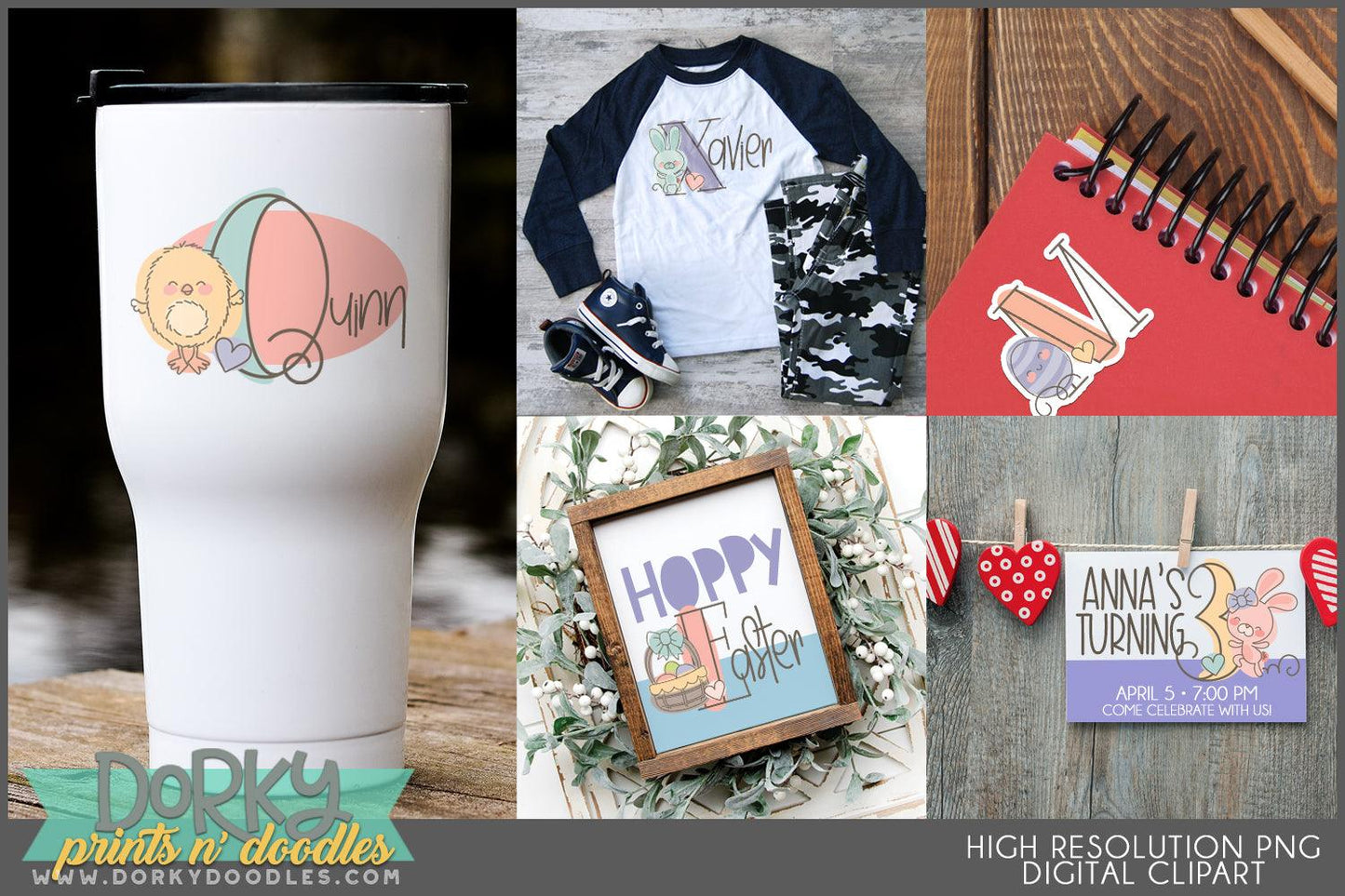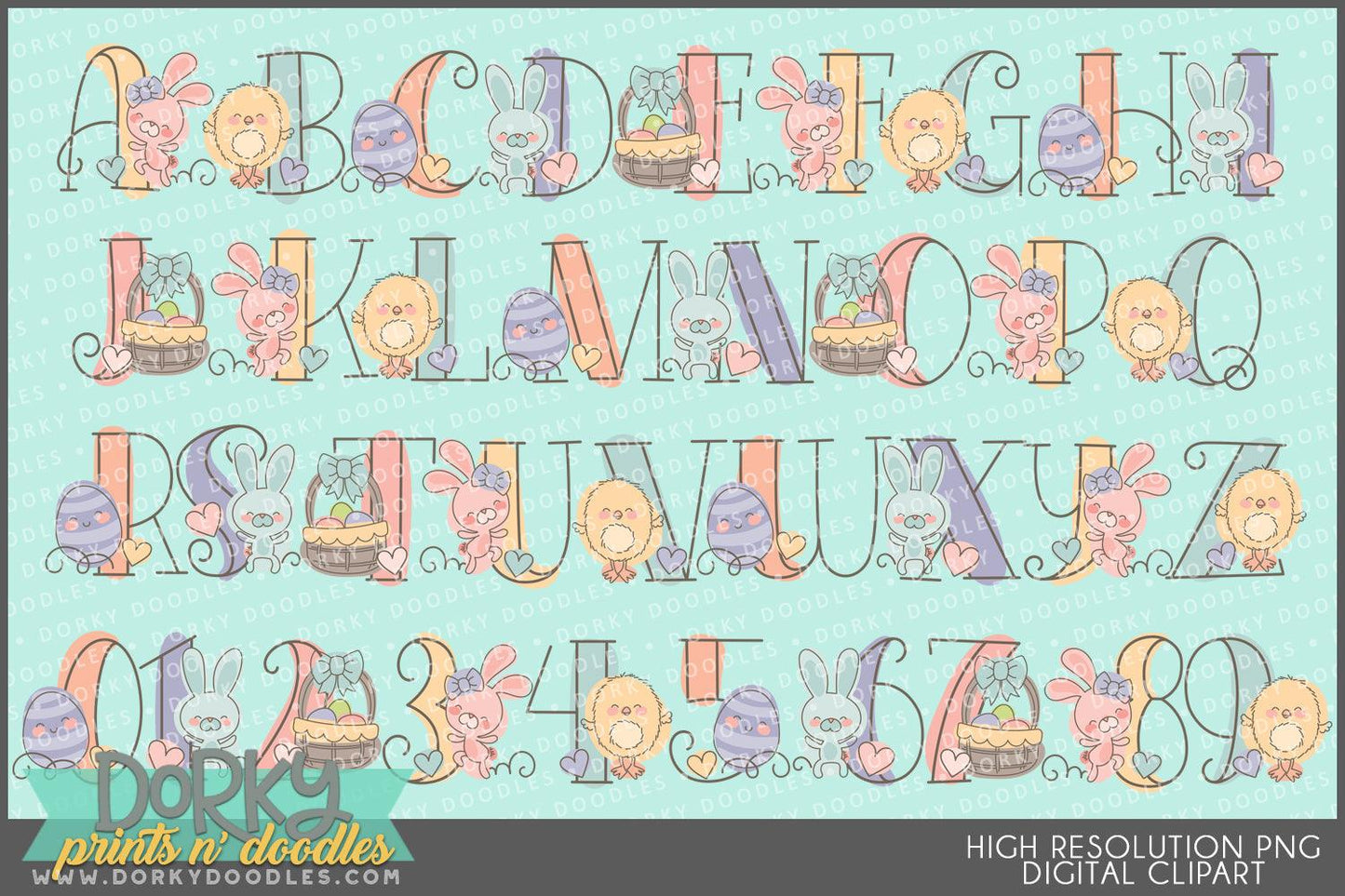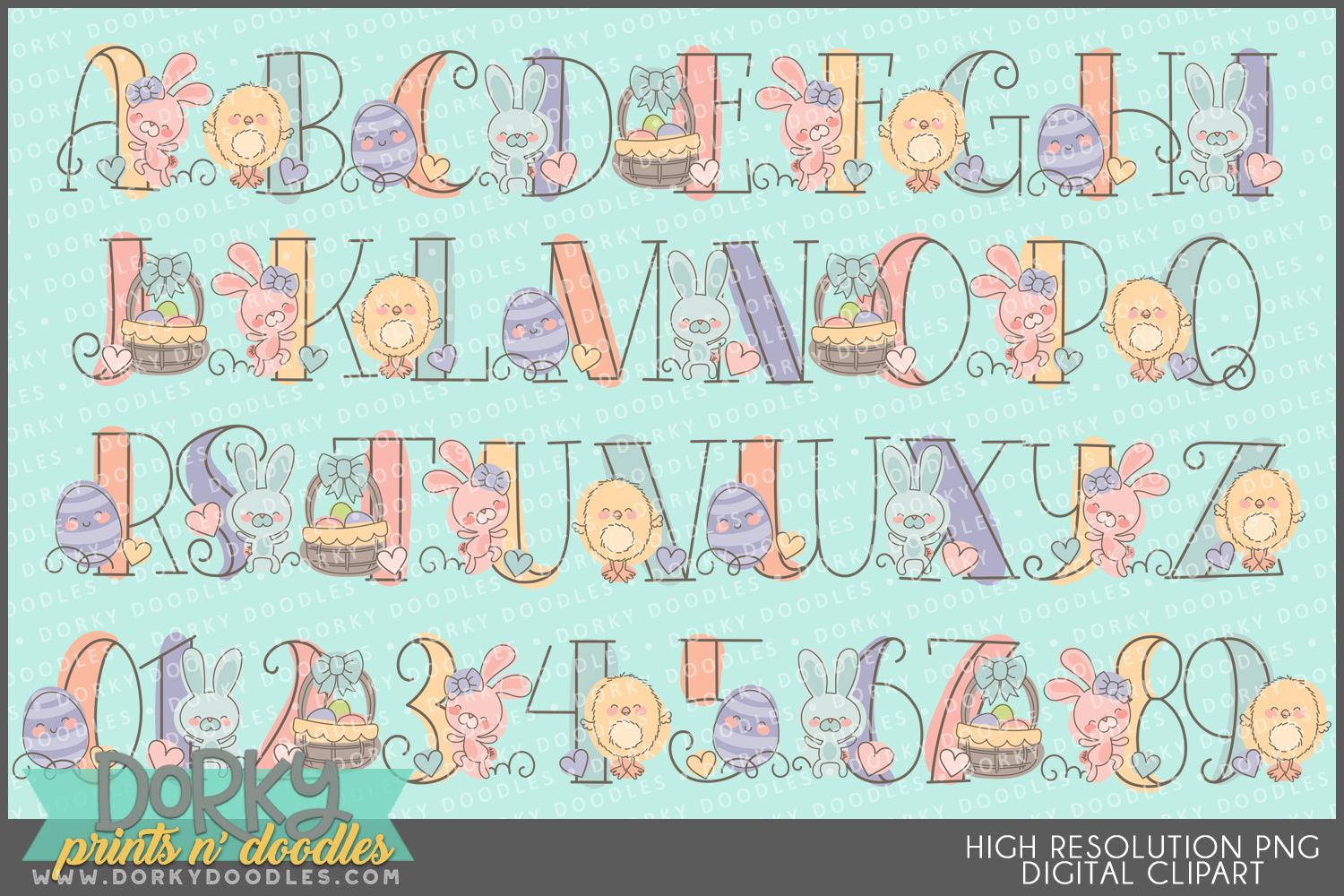
Sketchy Easter Alphabet Clipart
Looking to add a "hoppy" touch to your personal projects? What could be better than these cute sketchy Easter alphabet clipart images? Perfect for your party invitations, sublimation projects, planner stickers, cookie art, scrapbooking projects and more. You will get 36 Digital Clip Art images in high resolution PNG format (they come as a ZIP file that you can download instantly once payment has cleared).
the full alphabet and the numbers 0-9 featuring sketchy Easter Bunnies, Easter Eggs, Spring Chicks, and More